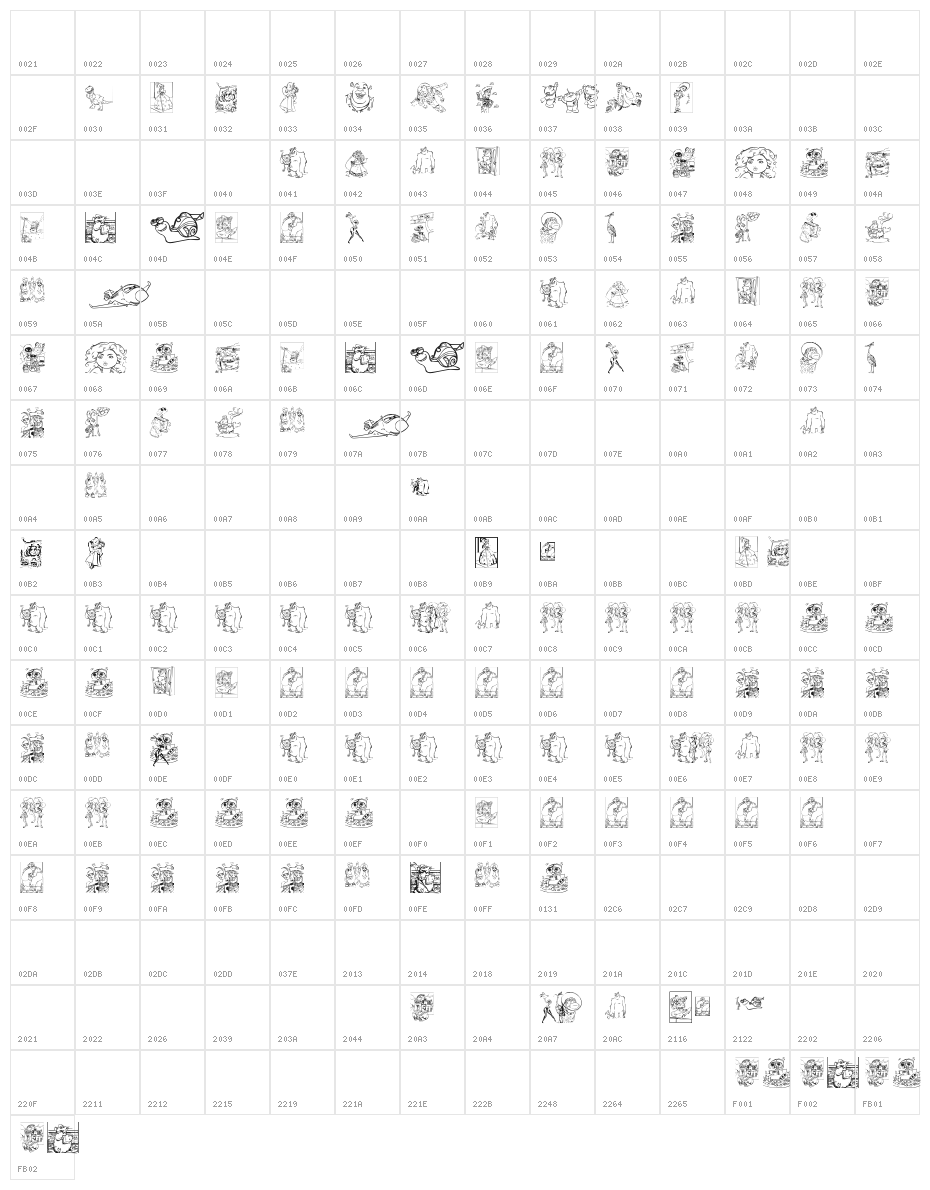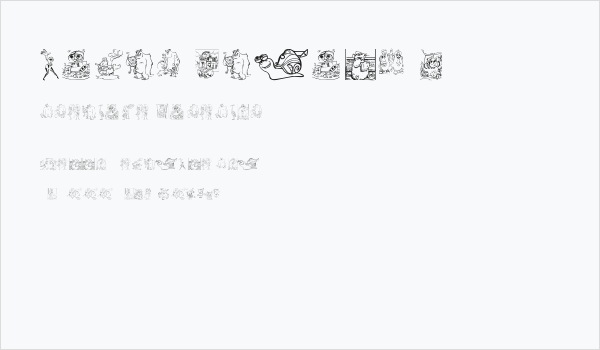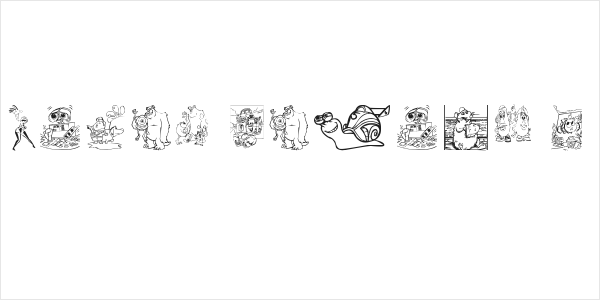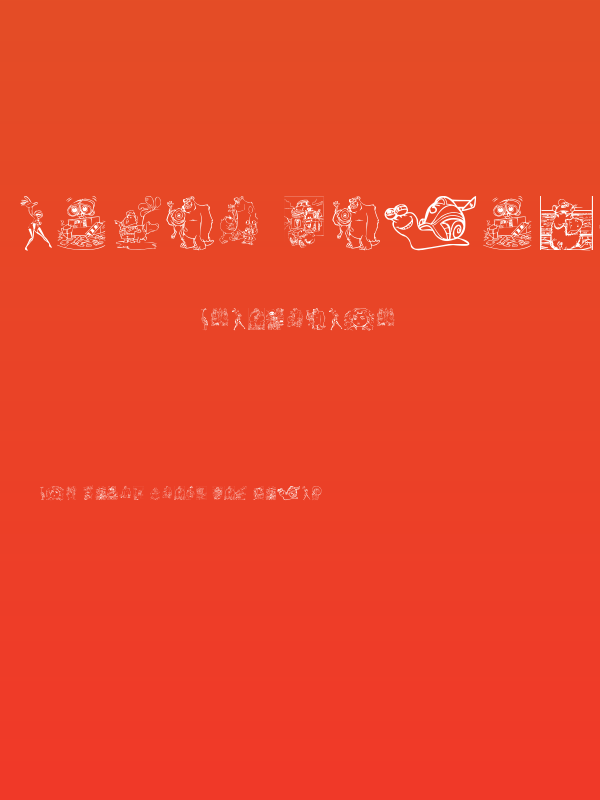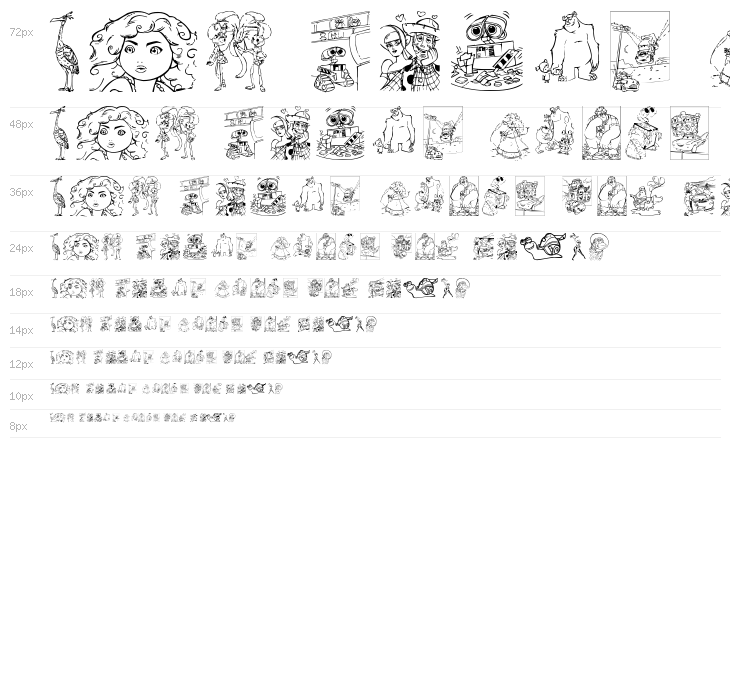
Pixar family 2 Font
Pixar family 2 Description
A decorative display font composed of detailed line-art illustrations representing various animated characters and scenes, with each glyph uniquely designed as a miniature cartoon drawing rather than traditional letterforms.
| Overall Style | Decorative, Playful, Whimsical |
| Use Case | Logos, Headlines, Posters, Themed Graphics |
| Proposed Projects | ChildrenΓ’β¬β’s book covers, party invitations, themed posters, animation event branding, playful merchandise. |